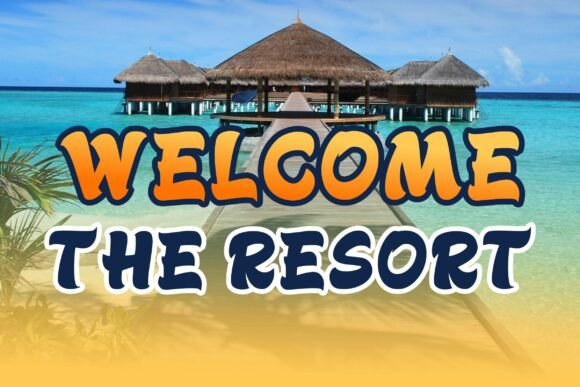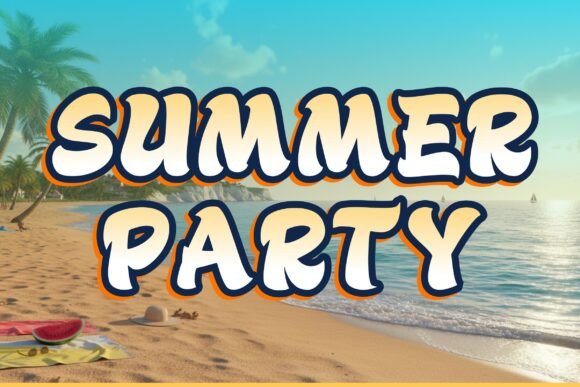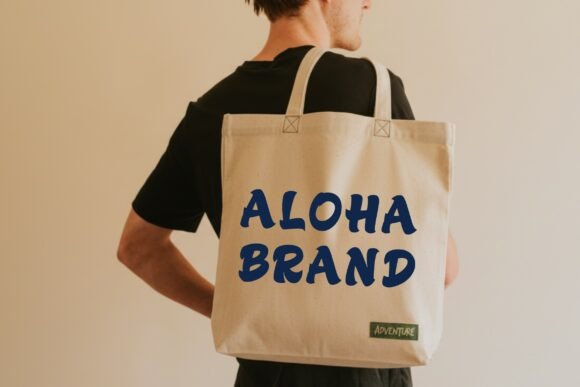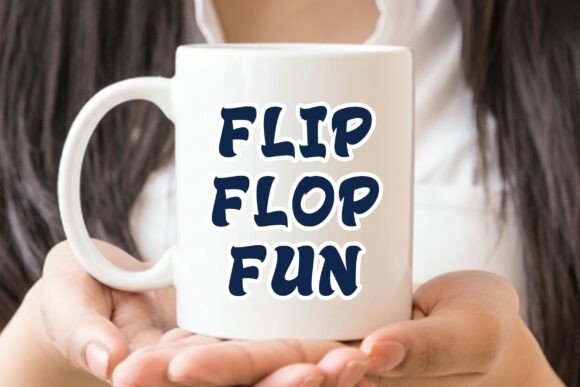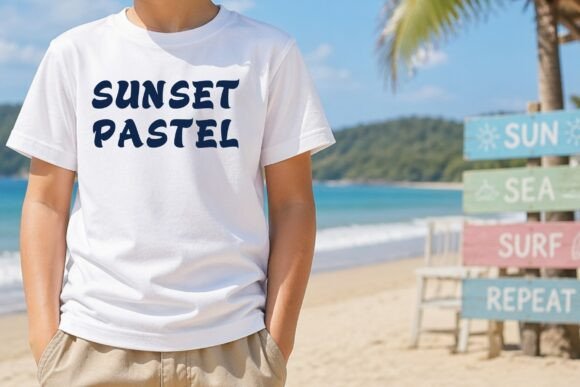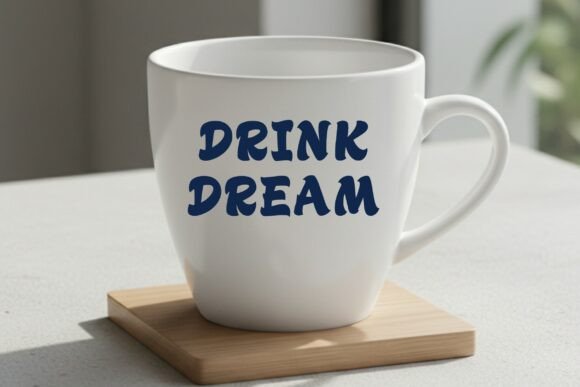
Introducing Coral Summer Font: The Perfect Addition to Your Summer Designs
Are you looking for a font that captures the essence of sunny beach vibes and tropical aesthetics? Look no further than Coral Summer Font, a bold and cheerful display font that’s perfect for summer-themed designs, kids’ projects, posters, branding, and eye-catching headlines. In this article, we’ll dive into the key features and benefits of Coral Summer Font, and explore how you can use it to elevate your designs.
What is Coral Summer Font?
Coral Summer Font is a display font that’s inspired by the carefree and vibrant spirit of summer. With its thick rounded shapes, fun character style, and vibrant personality, this font is sure to bring a smile to your face. Its playful curves and friendly appearance make it ideal for creating designs that feel warm, energetic, and full of life.
Key Features of Coral Summer Font
- Bold & Playful Style: Coral Summer Font features a bold and playful style that’s perfect for making a statement. Its thick rounded shapes give it a fun and energetic feel that’s sure to grab attention.
- Tropical and Summer Vibe: This font is inspired by the sunny beach vibes and tropical aesthetics of summer. It’s perfect for creating designs that evoke the feeling of a tropical paradise.
- Easy-to-Read Display Font: Despite its bold and playful style, Coral Summer Font is surprisingly easy to read. This makes it perfect for use in headlines, titles, and other display text.
- Perfect for Kids and Fun Designs: The fun and playful style of Coral Summer Font makes it perfect for use in kids’ projects, such as children’s books, posters, and activity sheets.
- Great for Headlines and Branding: The bold and attention-grabbing style of Coral Summer Font makes it perfect for use in headlines and branding. It’s sure to help your brand stand out and make a lasting impression.
Uses for Coral Summer Font
Coral Summer Font is a versatile font that can be used in a variety of design projects. Here are some ideas to get you started:
- Summer-Themed Designs: Use Coral Summer Font to create eye-catching summer-themed designs, such as beach posters, summer camp flyers, and tropical-themed social media graphics.
- Kids’ Projects: The fun and playful style of Coral Summer Font makes it perfect for use in kids’ projects, such as children’s books, activity sheets, and educational posters.
- Posters and Flyers: Use Coral Summer Font to create bold and attention-grabbing posters and flyers for events, promotions, and products.
- Branding and Logo Design: The bold and playful style of Coral Summer Font makes it perfect for use in branding and logo design. It’s sure to help your brand stand out and make a lasting impression.
Tips for Using Coral Summer Font
Here are some tips for getting the most out of Coral Summer Font:
- Use it sparingly: While Coral Summer Font is perfect for headlines and titles, it’s best to use it sparingly in your designs. This will help to create visual interest and avoid overwhelming your audience.
- Pair it with complementary fonts: Coral Summer Font pairs well with a variety of fonts, including sans-serif fonts like Arial and Helvetica. Experiment with different font combinations to find the perfect look for your design.
- Experiment with colors: Coral Summer Font looks great in a variety of colors, including bright and bold colors like pink, orange, and yellow. Experiment with different colors to find the perfect look for your design.
Coral Summer Font is a bold and cheerful display font that’s perfect for summer-themed designs, kids’ projects, posters, branding, and eye-catching headlines. With its thick rounded shapes, fun character style, and vibrant personality, this font is sure to bring a smile to your face. Whether you’re a designer, craft, or DIY enthusiast, Coral Summer Font is a great addition to your font collection.